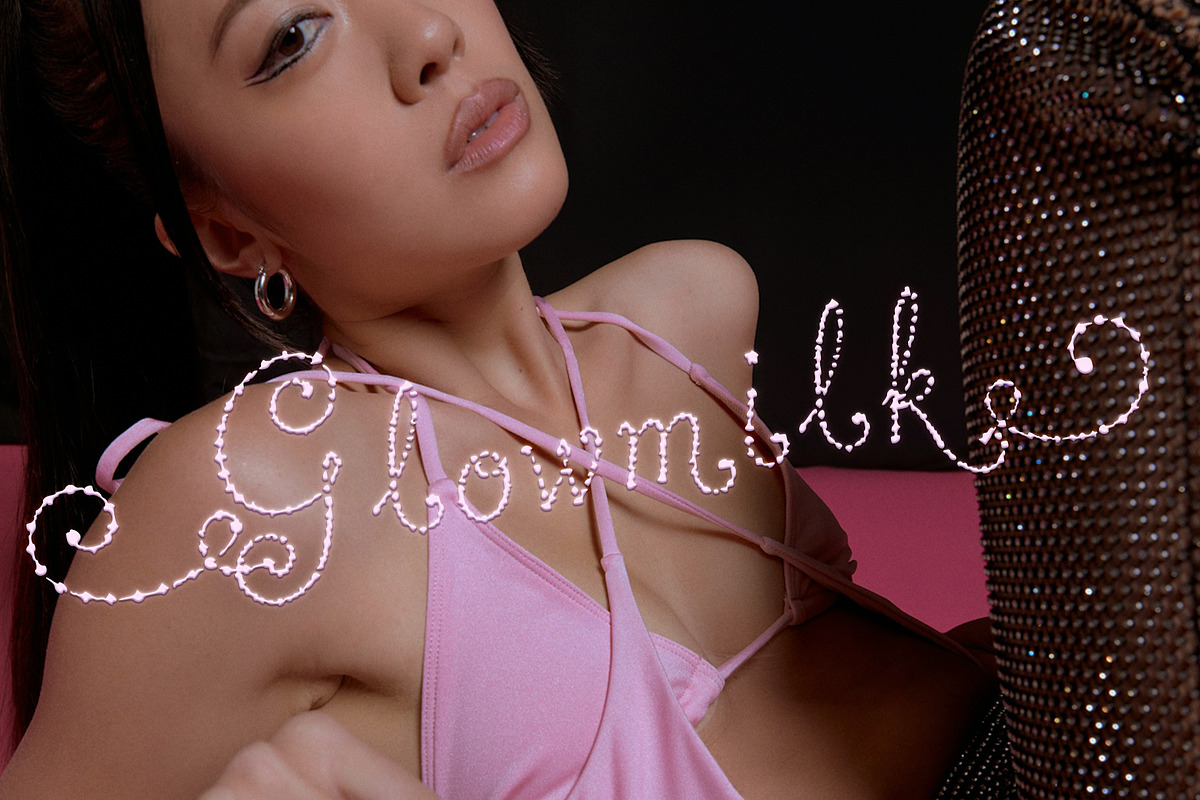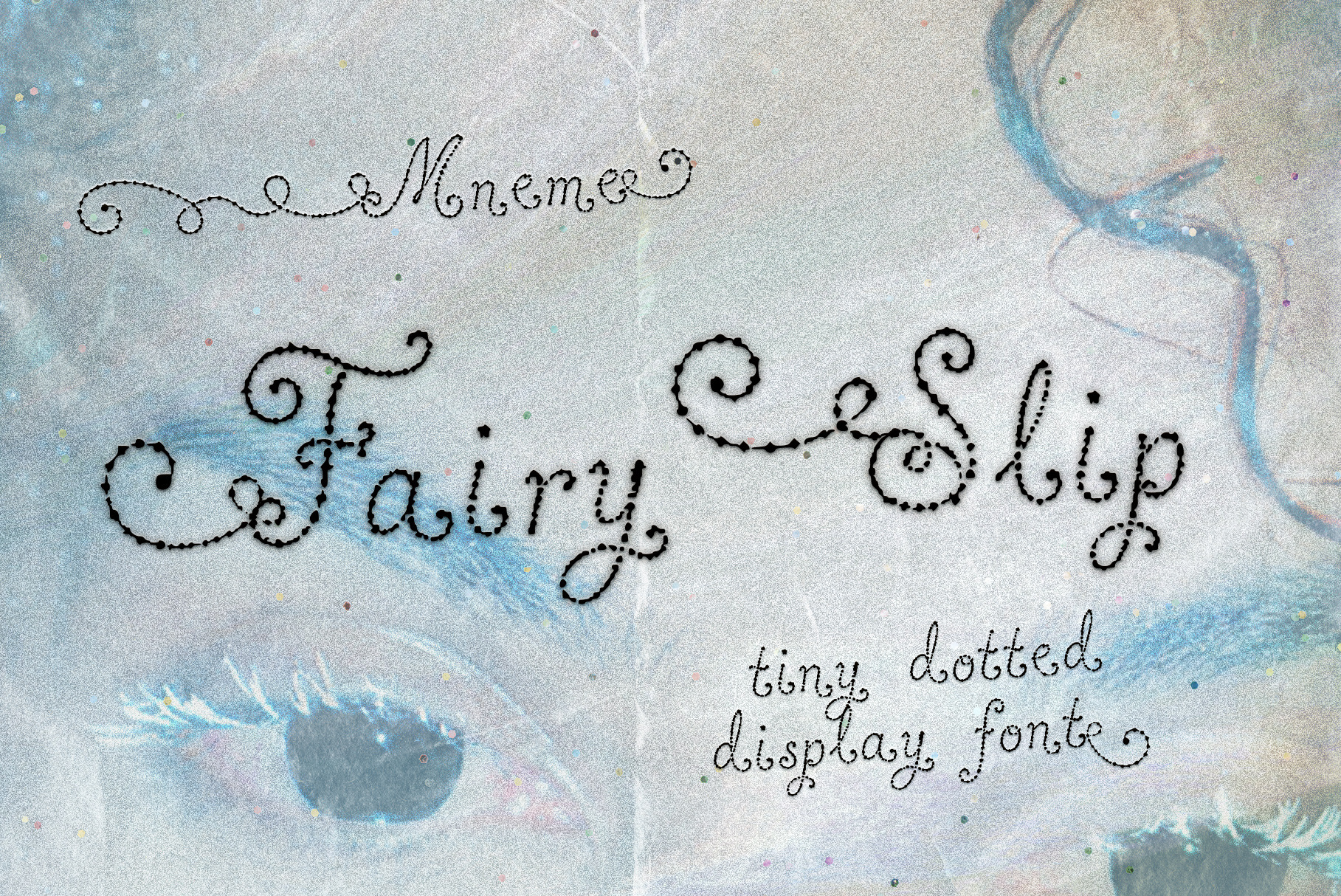
Fairy Slip: Tiny Dotted Display Font
Fairy Slip is a tiny dotted display font with delicate curves, soft serif details, and a light magical feeling. It looks like letters made from pollen, little pin-pricks, fairy paperwork, beauty labels, tiny receipts, and soft notes found somewhere between a garden shop and a skincare shelf.
The font has a decorative but airy look, with dotted ink texture, thin ornamental turns, playful numbers, and a fragile little rhythm that works beautifully for small titles, labels, packaging, stickers, invitations, beauty branding, fairycore graphics, soft social posts, moodboards, and delicate editorial details.